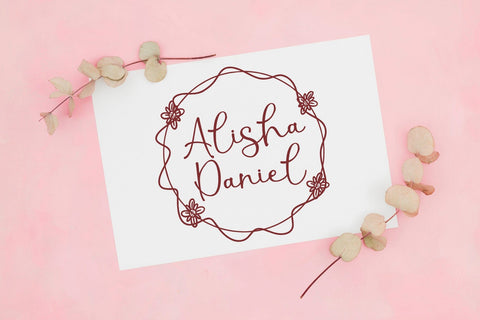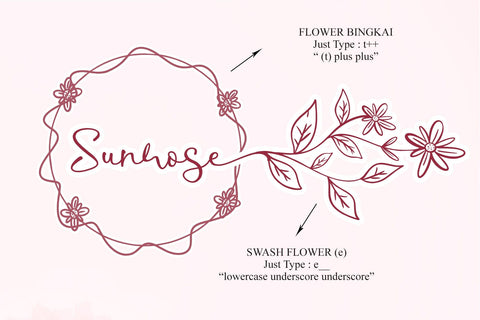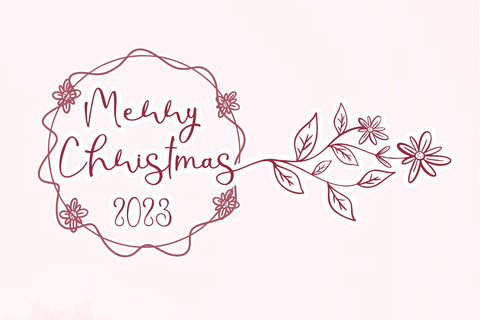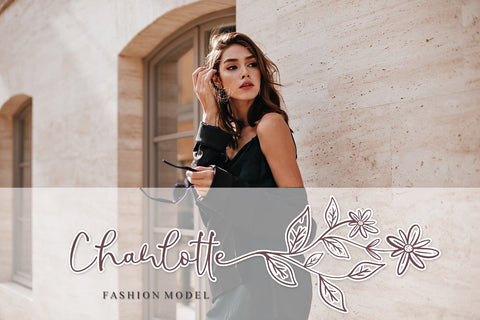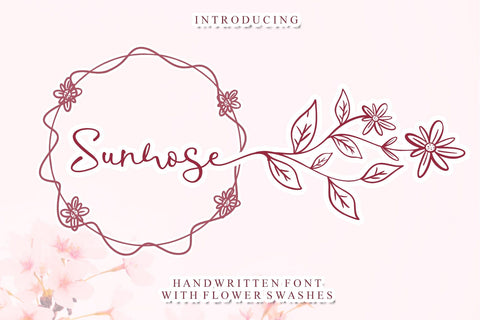
Sunrose - Handwritten Font with Flower Swashes
Sunrose is a lovely handwritten font with flower swashes featuring charming, playful characters that seem to dance along the baseline. This font is PUA encoded which means you can access all of the glyphs and swashes with ease!